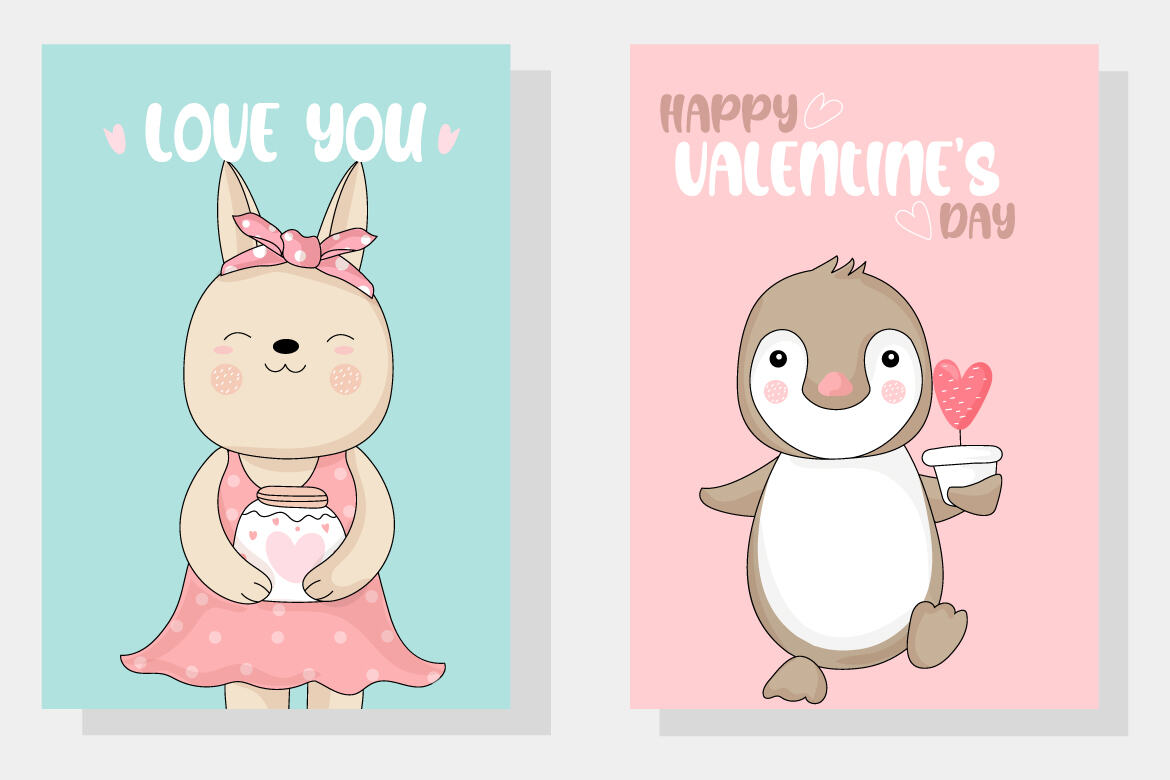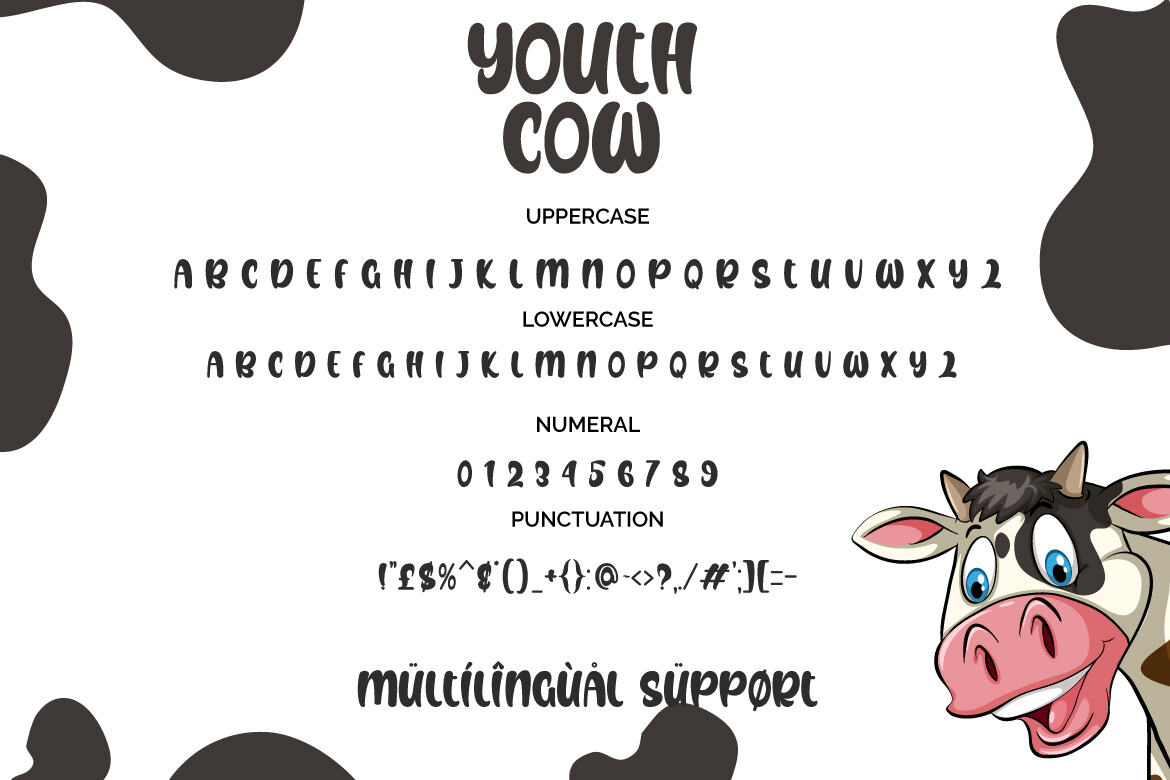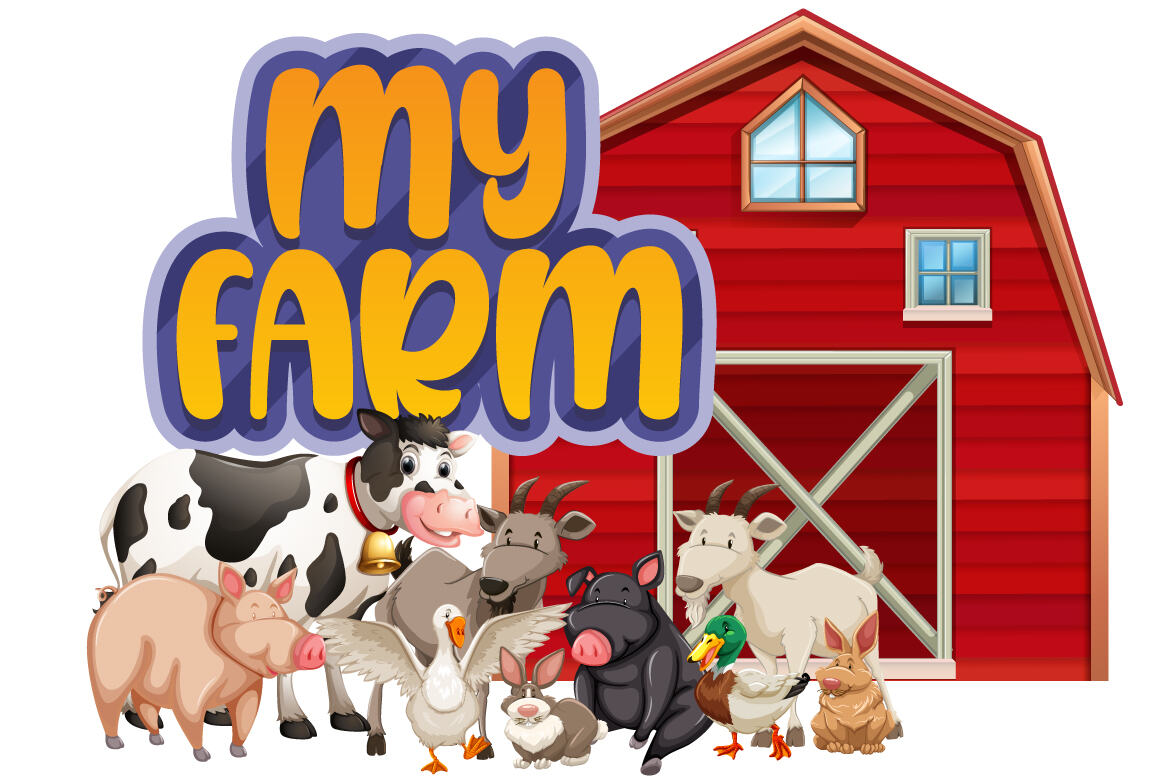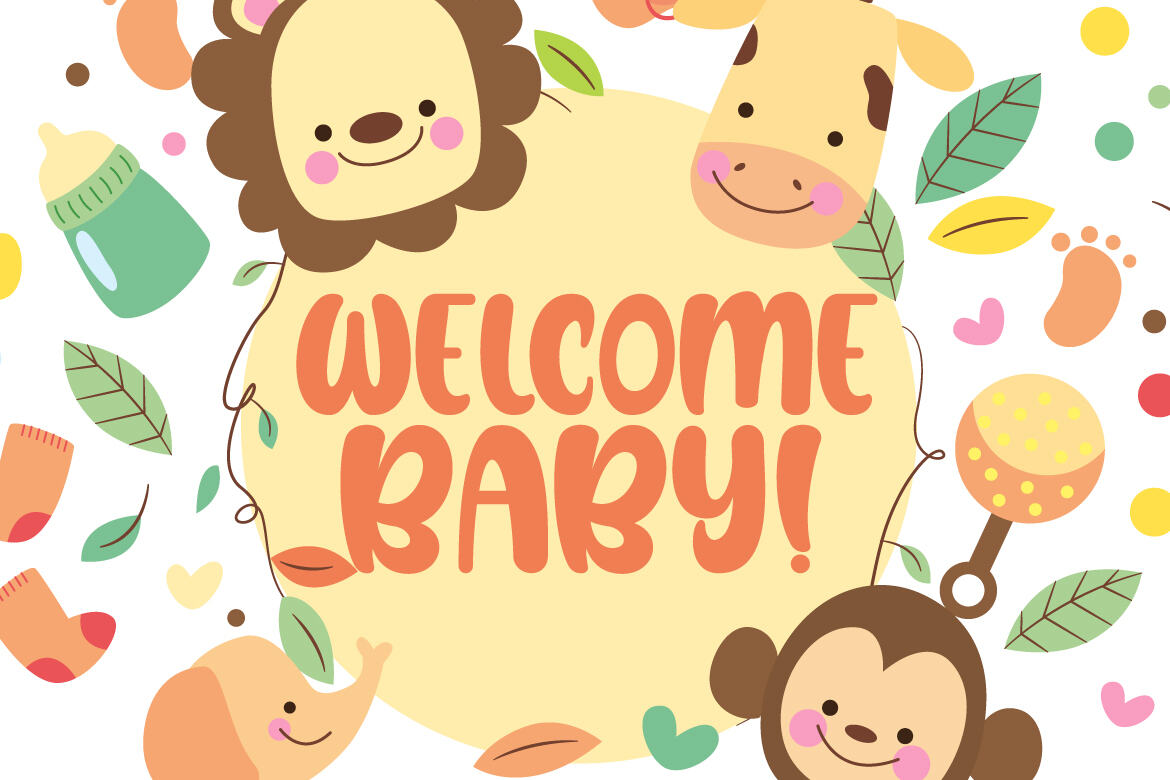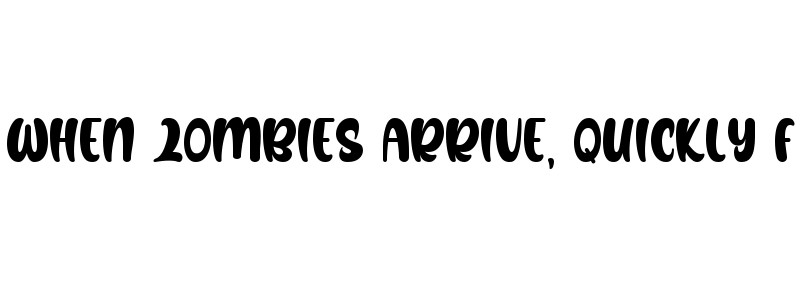
Youth Cow - Free Font
Youth Cow
Introducing of our new product the name is Youth Cow a handwritten Sans Serif Font. Youth Cow inspired by Comic Style this font is a fun theme very good for kids, comic, food logo, food menu, wedding invitation, logotype and etc